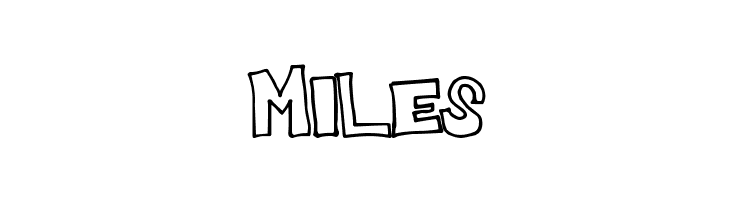
A playful, bold handwritten font with thick, uneven strokes and a whimsical style.
A whimsical, hand-drawn script font with tall uppercase and bold lowercase letters.